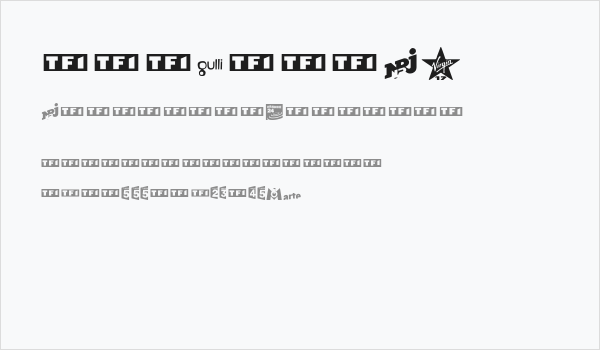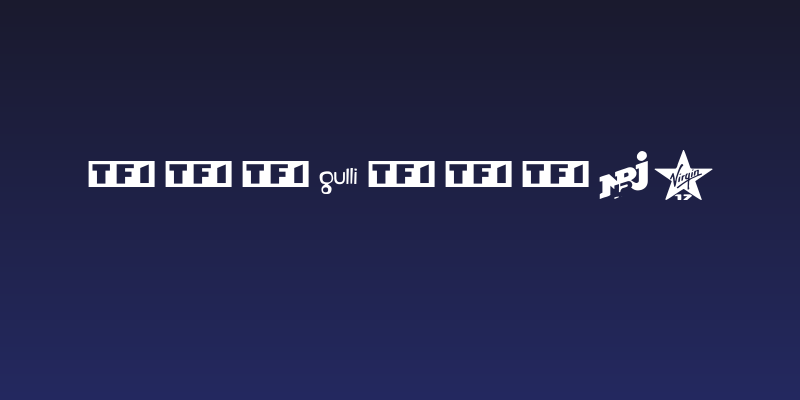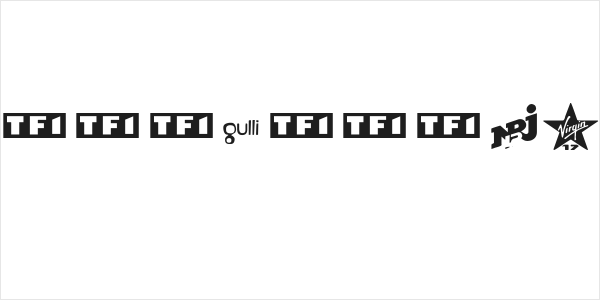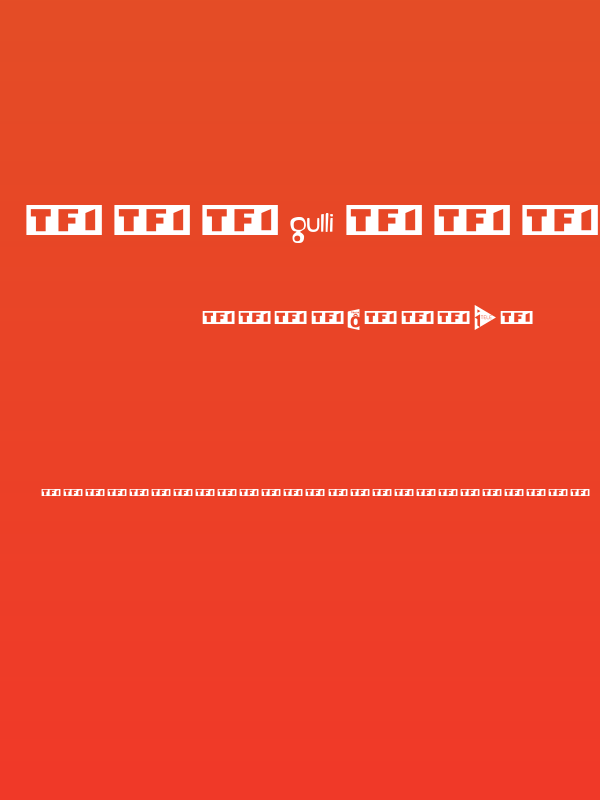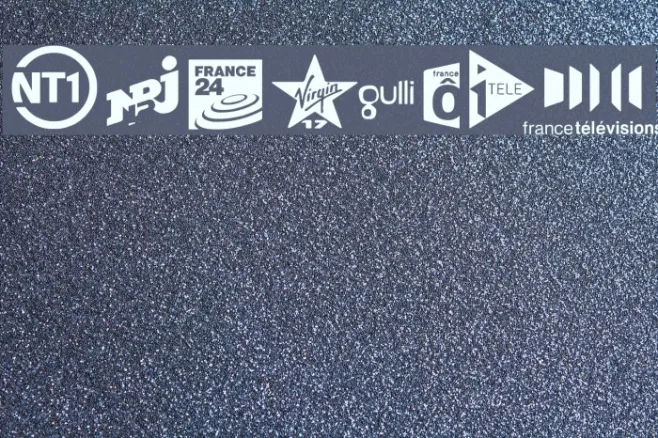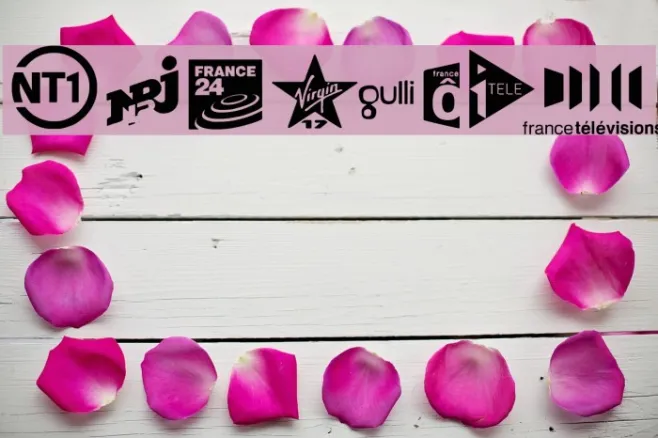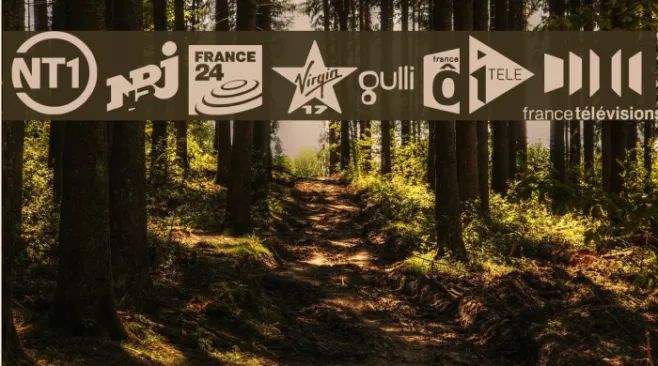
TV FRANCE Font
TV FRANCE Description
A bold, geometric sans-serif typeface with uppercase letters in white set against a solid black rectangular background, creating a high-contrast, modern appearance. The letterforms are simple, clean, and evenly spaced, with uniform stroke thickness and no decorative elements.
| Use Case | Logos, headlines, branding, signage. |
| Proposed Projects | Branding, logos, signage, TV channel identities, headlines. |